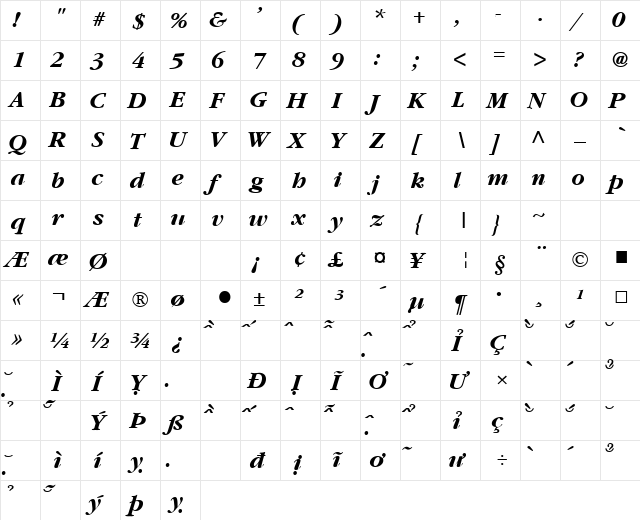
VNI-Garam Bold Italic Font Preview
Design Context for VNI-Garam Typeface
VNI-Garam offers clean, dependable letterforms without strong stylistic allegiance, making it a practical choice for designers who need flexibility. The dynamic lean of this cut emphasises speed and emphasis in any layout. The heavy weight commands attention and anchors typographic hierarchies.